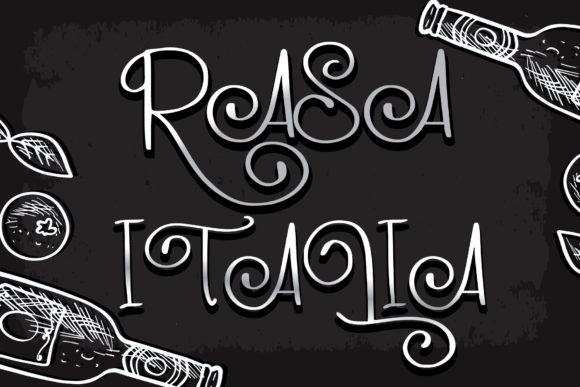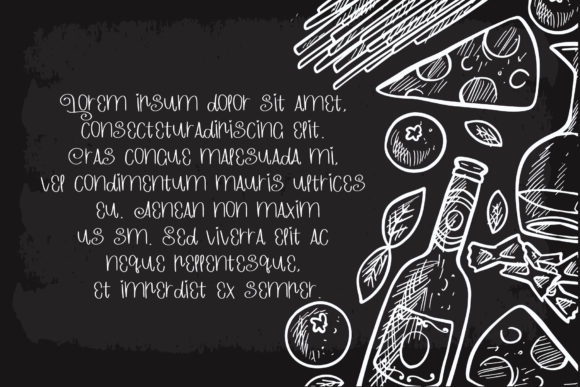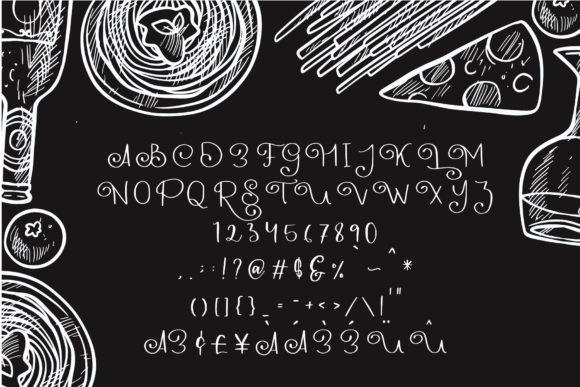
Introduction to Rasa Italia Font
As a designer, have you ever found yourself stuck in a creative rut, searching for that perfect font to bring your project to life? I know I have. That’s why I’m thrilled to introduce you to the Rasa Italia Font, a stunning and unique handwritten font that’s sure to spark your creativity. Whether you’re working on a letterhead, title, or stationery project, this font’s special charm is sure to make your design stand out.
What I love about the Rasa Italia Font is its high quality and versatility. It’s perfect for designers who want to add a personal touch to their projects without sacrificing professionalism. Plus, with a transparent background, you can easily layer it over other design elements to create a cohesive look. And the best part? It’s available for free download, making it an invaluable resource for any creative project.
Whether you’re a seasoned designer or just starting out, the Rasa Italia Font is an absolute must-have in your design arsenal. Its unique charm and high-quality design make it a valuable addition to any design resource library. So why wait? Dive in and discover the magic of the Rasa Italia Font for yourself!
Rasa Italia Font
- High-quality font with a unique, elegant design suitable for creative projects.
- Features a transparent background, making it ideal for use on various backgrounds.
- Includes a range of characters, including Latin and Cyrillic alphabets, as well as punctuation and symbols.
- Suitable for use in various design projects, including branding, advertising, and editorial content.
- Designed to be a versatile and stylish design resource for creative professionals.
Honest Review: Rasa Italia Font
I recently had the chance to work with the Rasa Italia Font for a creative project, and I must say it’s been a great addition to my design resources. The font is available for free download, which is always a bonus.
One of the standout features of Rasa Italia Font is its high-quality design. The font is clean and elegant, making it perfect for a variety of creative projects. I particularly appreciate the transparent background, which allows for easy layering and manipulation.
- Perfect for creative projects
- Limited character set
- No bold or italic variations
Overall, I’m really impressed with the Rasa Italia Font. It’s a great resource for designers looking for a high-quality, elegant font for their creative projects. While it may have a few limitations, it’s definitely worth considering for your next design project.
Tips for Getting the Most Out of Rasa Italia Font
To get the most out of the Rasa Italia Font, use it on a transparent background to create a clean and modern look. Experiment with different font sizes and colors to add depth and interest to your design.
The Rasa Italia Font is ideal for use in creative projects such as:
- Business card design
- Brochure design
- Infographic design
Can I use the Rasa Italia Font with a transparent background?
Yes, the Rasa Italia Font supports transparent backgrounds, making it ideal for use in creative projects that require a high level of design flexibility. However, please note that the font’s transparency settings may vary depending on the design application and operating system being used.